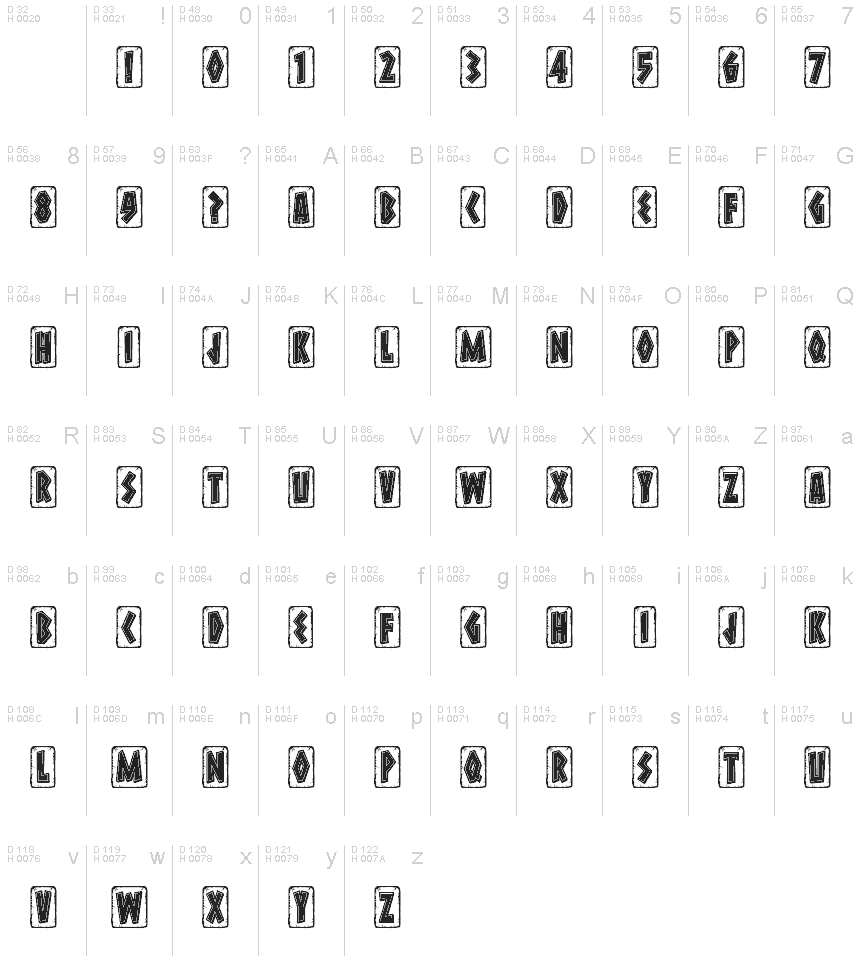
Meteora Rocky Regular
"Meteora" is an awesome font done in Greek style.
It comes in Regular and Rocky version.
It will looks awesome on any poster, flyer or print.